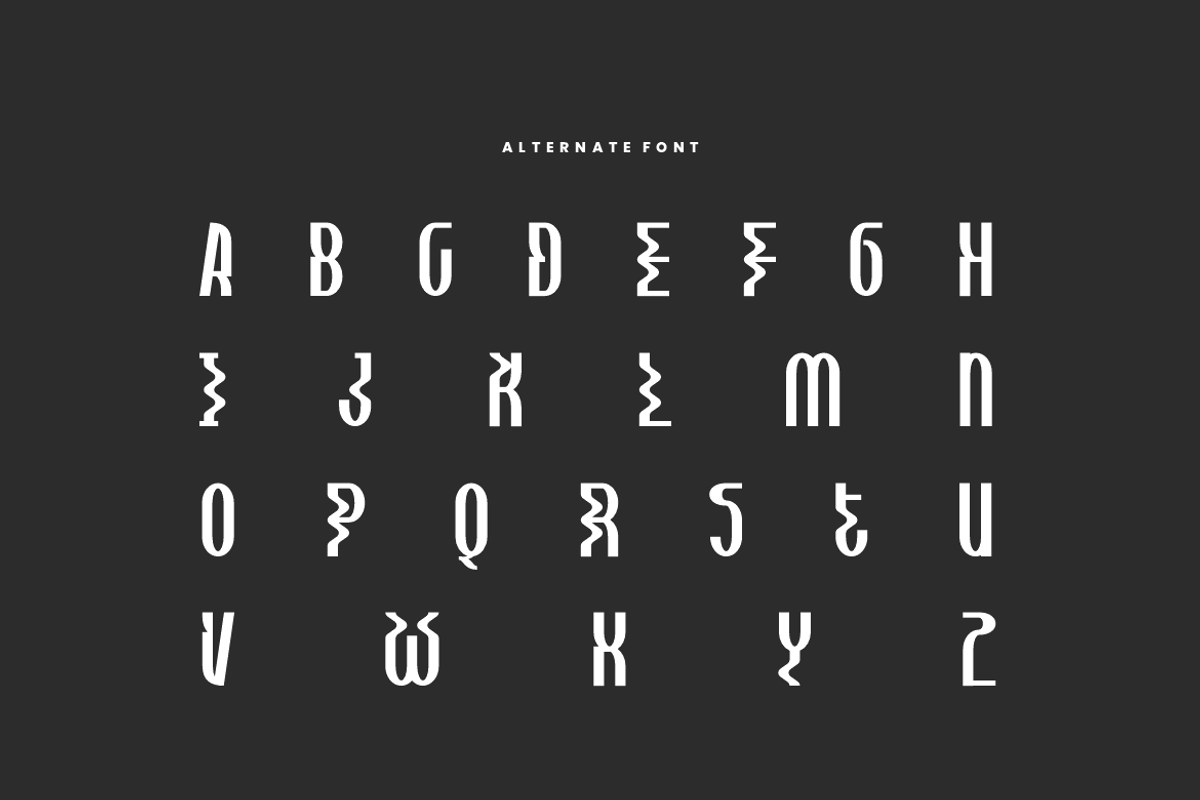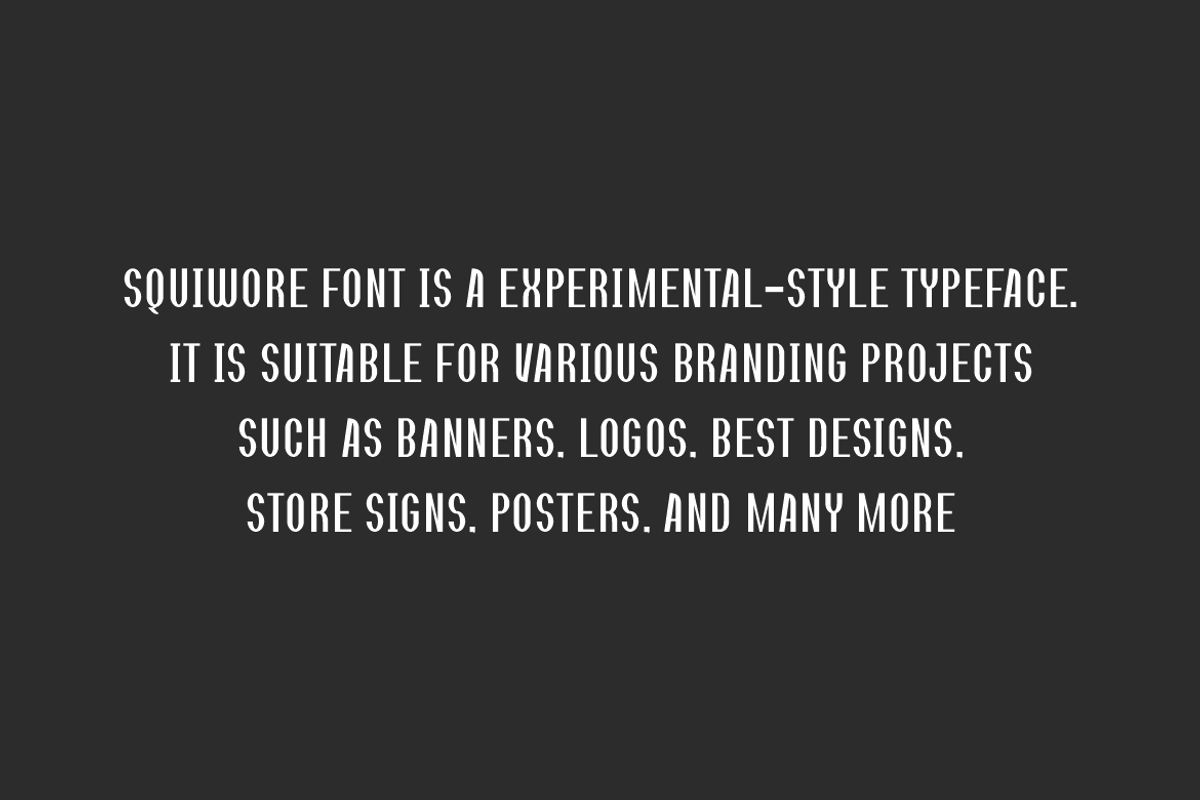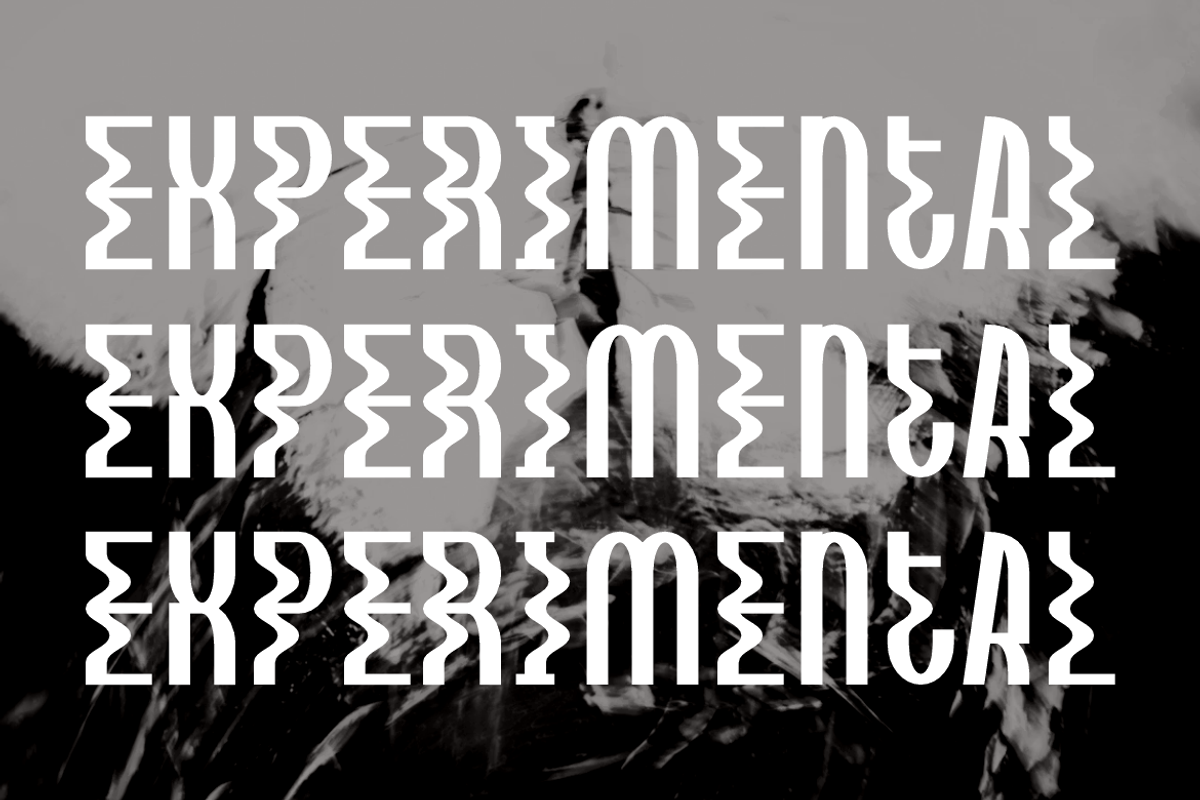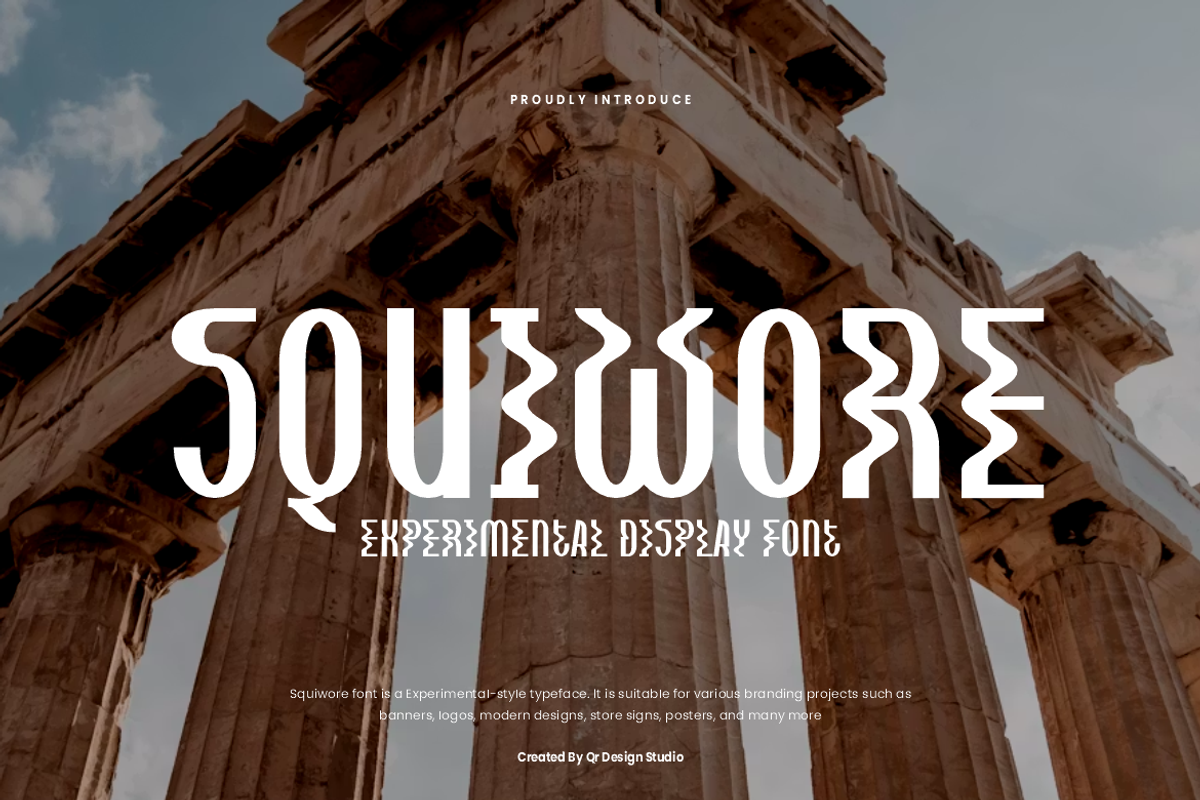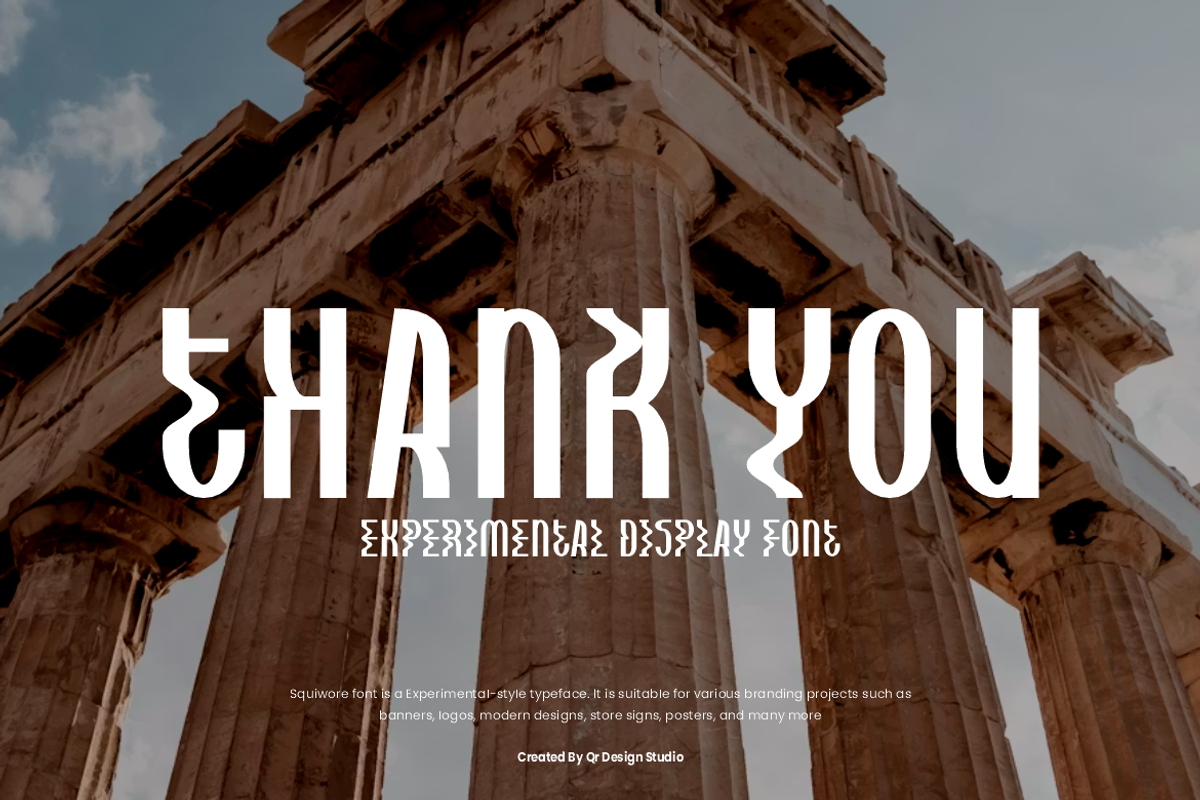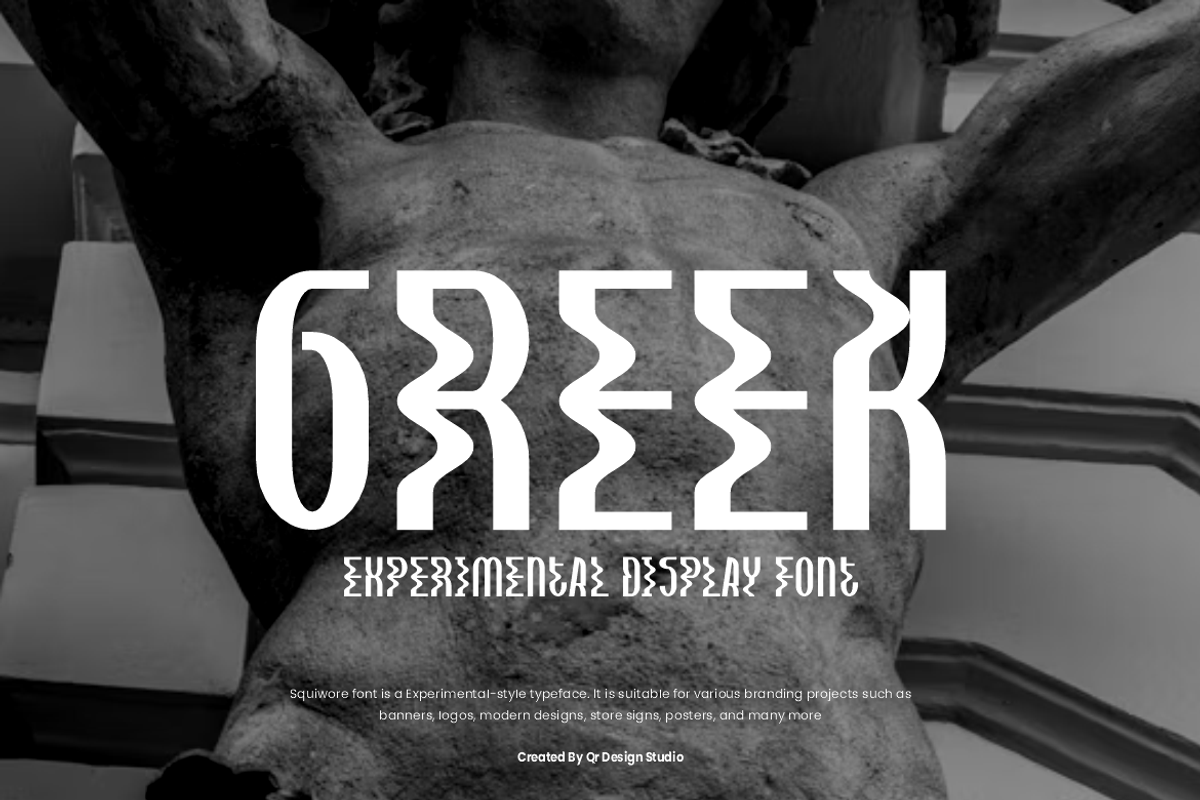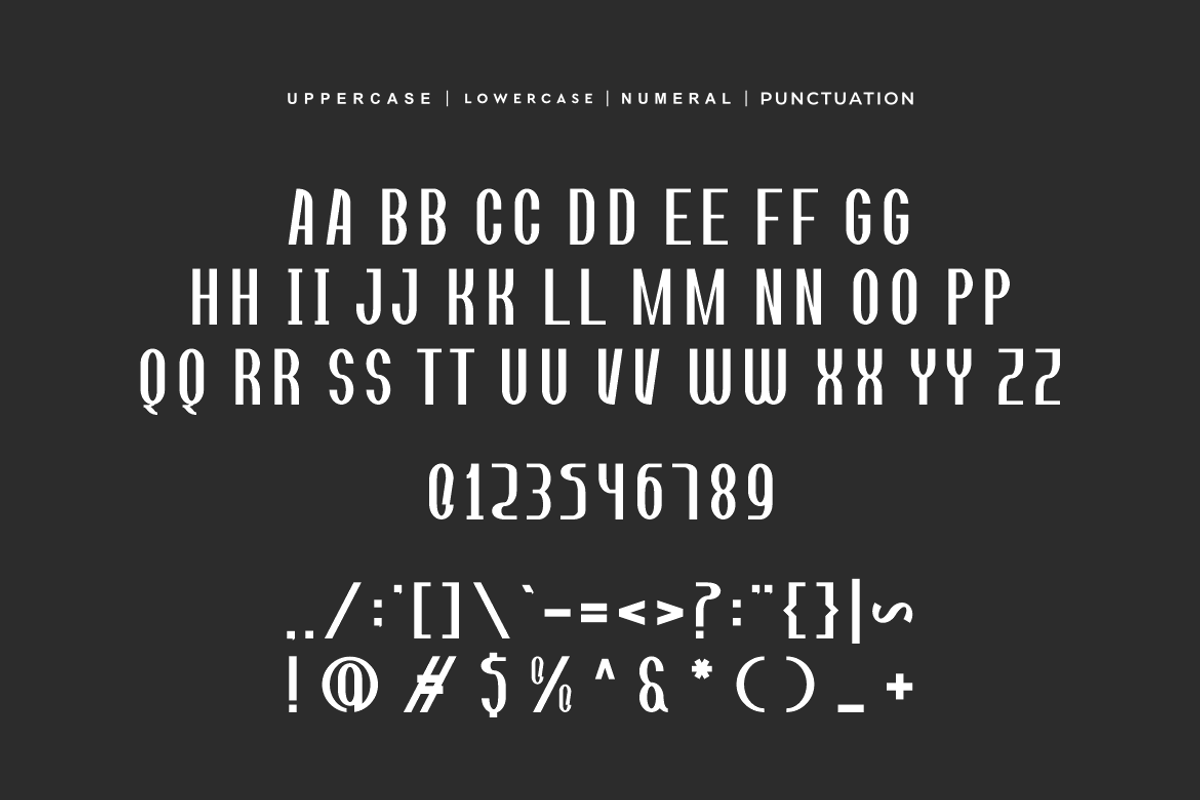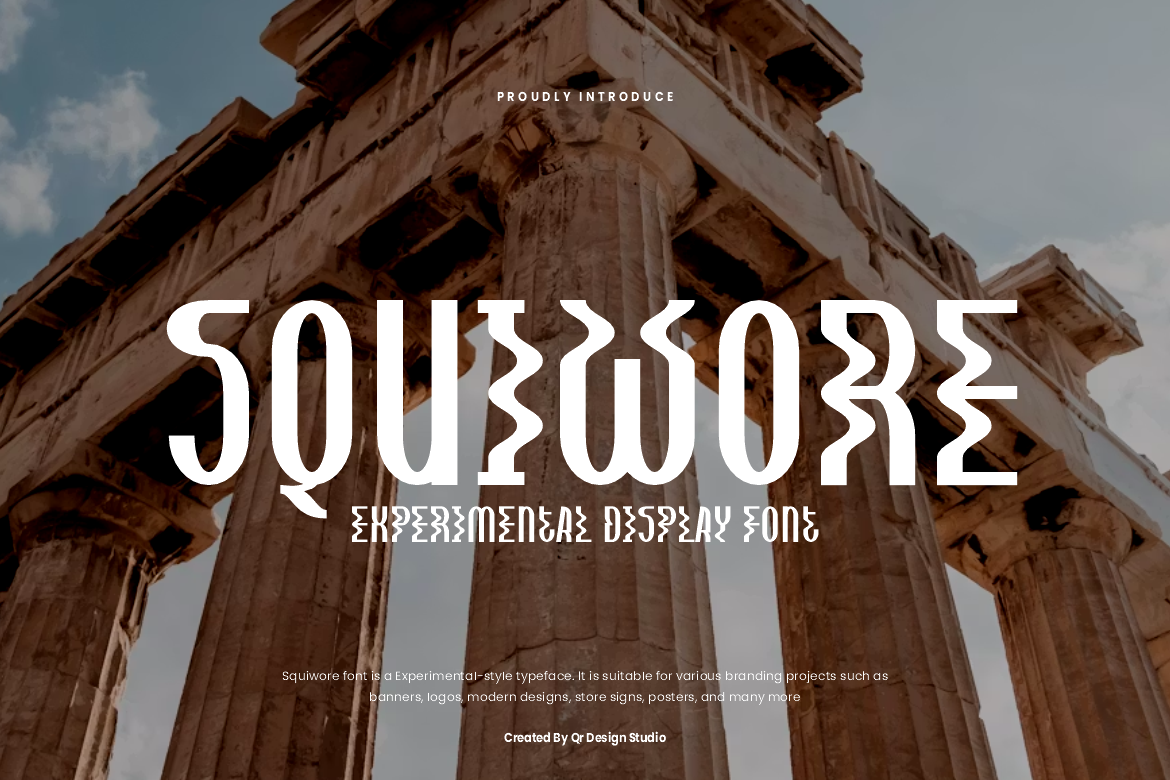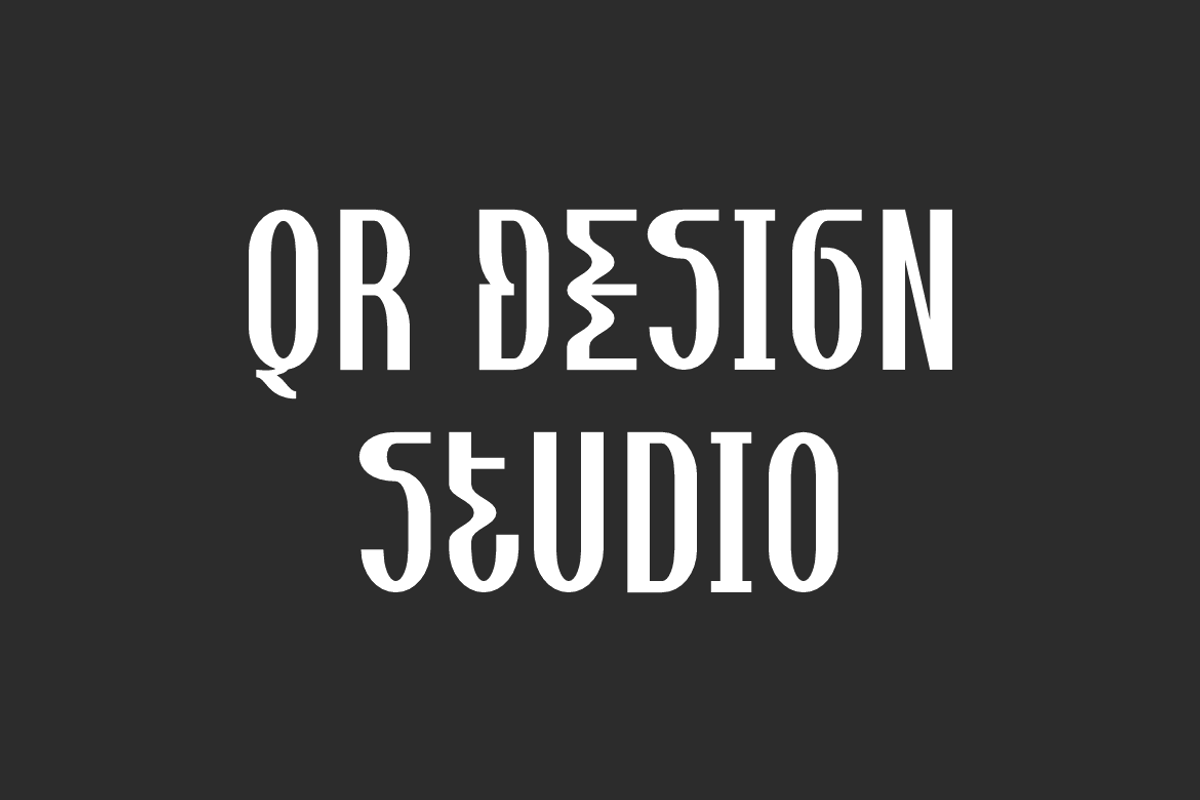
Squiwore - Experimental Font
Squiwore Font is a best and authentic display typeface. It’s perfect for various branding projects such as logos, best designs, and more. This font stands out beautifully in a wide range of contexts.